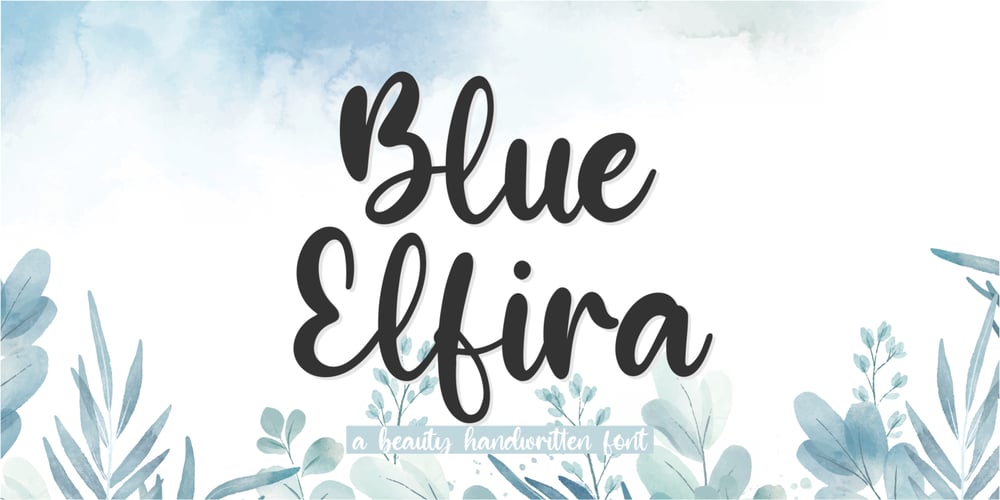
Blue Elfira Font Family was designed by Suhery Anto, Odies Dwi Yudhistira and published by Qwrtype Foundry. Blue Elfira contains 1 styles and family package options. Proudly presenting: Blue Elfira is a beautyful handwritten script font.Blue Elfira is perfect for product packaging, branding projects, magazines, social media, wedding invitations, or just used to express words above the background.Blue Elfira also comes with multillingual support.Enjoy the font, thank you!